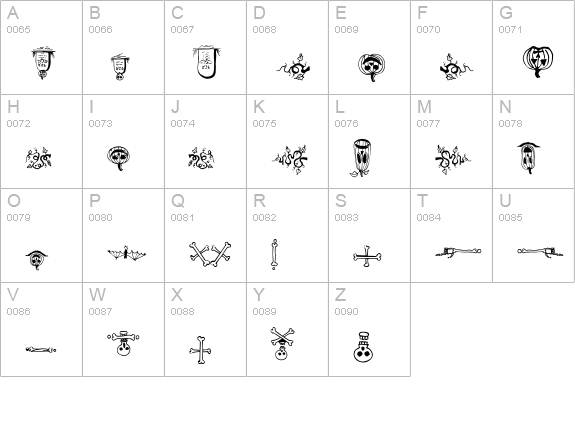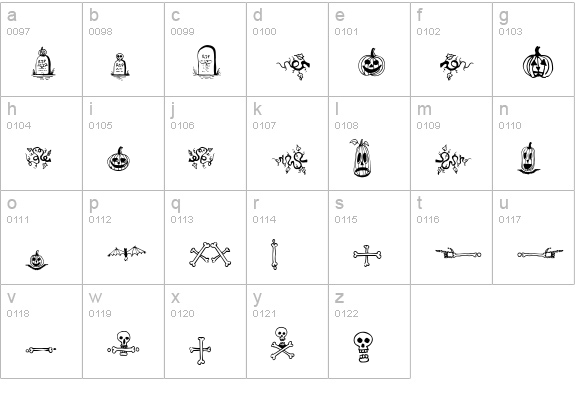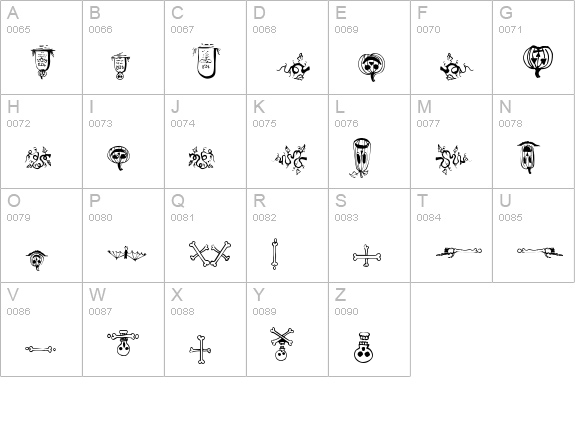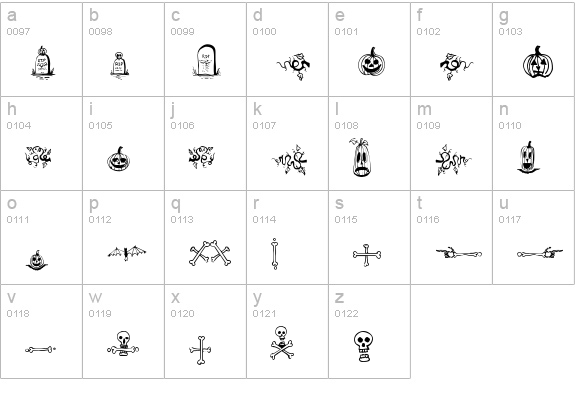
Introducing Halloween Borders font, a hauntingly beautiful typeface that is perfect for adding a touch of spookiness to your Halloween-themed projects. With its intricate details and eerie charm, this font is sure to captivate and enchant your audience. Featuring an array of creepy border designs inspired by classic Halloween motifs, this font allows you to effortlessly create eye-catching headlines, posters, invitations, and more. Whether you're planning a costume party, designing a haunted house flyer, or simply want to add a touch of the supernatural to your personal creations, Halloween Borders font is the ideal choice. But what makes Halloween Borders font even more enticing is that it is available for free download at FontsMarket.com. Yes, you read that right – this incredible font is freely accessible, allowing you to unleash your creativity without breaking the bank. So, don't miss out on this fantastic opportunity to elevate your Halloween designs with the captivating allure of Halloween Borders font. Download it today from FontsMarket.com and let your imagination run wild. Whether you're a graphic designer, a Halloween enthusiast, or simply someone looking to add a touch of fright to their projects, this font is your ultimate go-to. Get ready to embrace the spirit of Halloween and create something truly extraordinary.